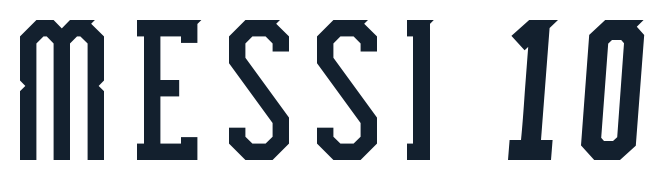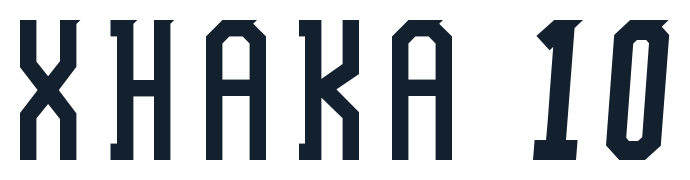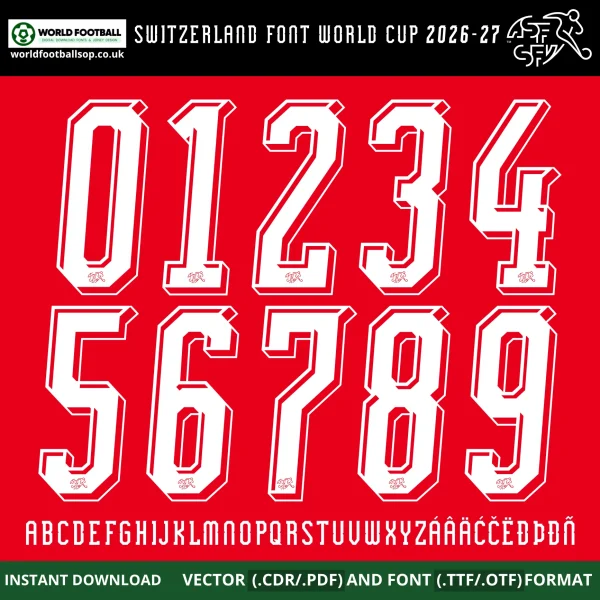
Switzerland 2026 World Cup Font Kit - Nati Red Kit Typography
The Switzerland 2026 World Cup Font Kit recreates the clean, modern white lettering style used on Puma's official Rossocrociati home jersey for World Cup 2026. This precise sans-serif typeface with subtle outlines complements the kit's passport-inspired geometric patterns and UV-reactive details. Perfect for fans supporting Granit Xhaka, Breel Embolo and the Swiss national team at football's biggest tournament.
Designed to match the bold red shirt with white cross accents, the font offers excellent legibility on both digital screens and printed namesets. You get TTF and OTF files for installation plus vector formats for professional artwork scaling.
Complete A-Z uppercase letters and numbers 0-9
Accented characters for Swiss/German/French names (e.g., Ä, É, Ï, Ö, Ü, Ý)
Clean style with red outline details matching the Puma Nati kit
Ideal for custom Xhaka 8 jerseys, namesets, score graphics, posters, social media thumbnails, banners and fan merchandise. The preview highlights white numbers on red background with Swiss cross/SF V crest elements.
Tailored for Switzerland: Perfect for World Cup kits, Nati graphics and Rossocrociati fan projects
Authentic Puma style: Reflects the precise typography of the 2026 home kit
The structured, readable design gives your football visuals the disciplined Swiss precision.
Use this Switzerland 2026 World Cup Font Kit to showcase Nati pride in your designs – from custom kits to tournament graphics.